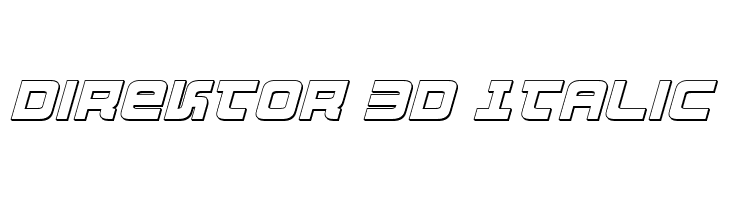
A bold, 3D italic font with outlined characters and a futuristic style.
A bold, futuristic italic font with geometric outlines and a three-dimensional effect.
A bold, expanded, and italicized font with a futuristic geometric style.
A bold, italic, futuristic font with sharp angles and a dynamic style.
A bold, futuristic font with geometric and slightly slanted characters.